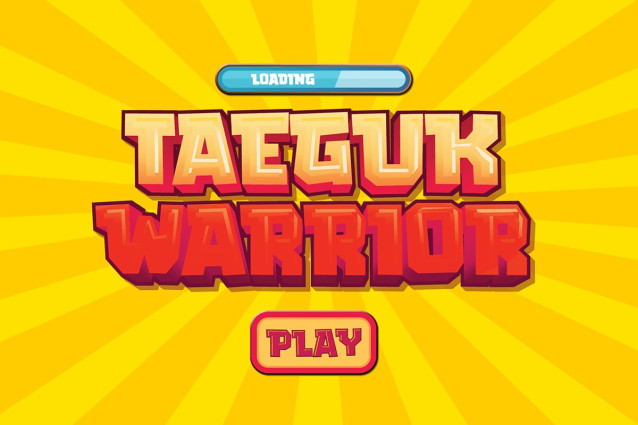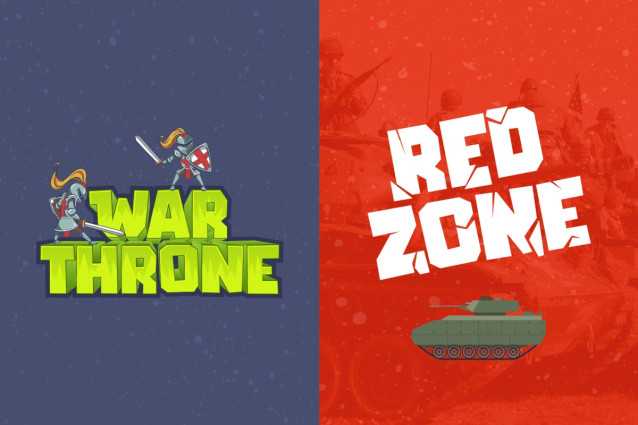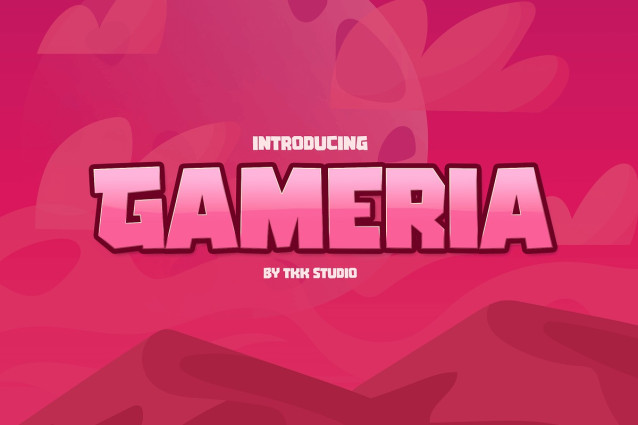
Gameria Font
Gameria Font gaming font having a blocky shape with a powerful, quirky, and strong sharp corner will emphasize every word you put on the screen.